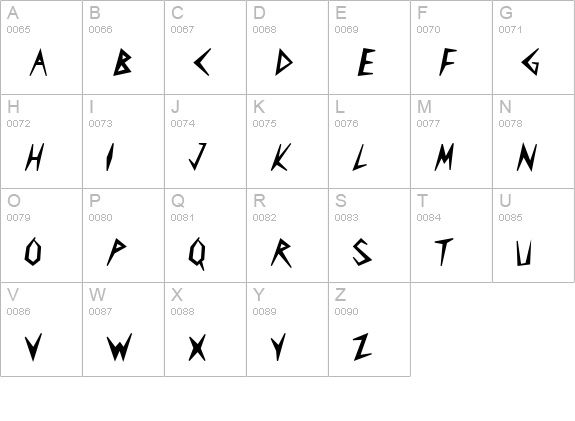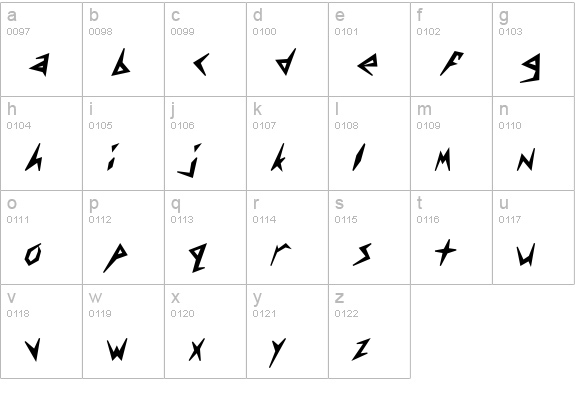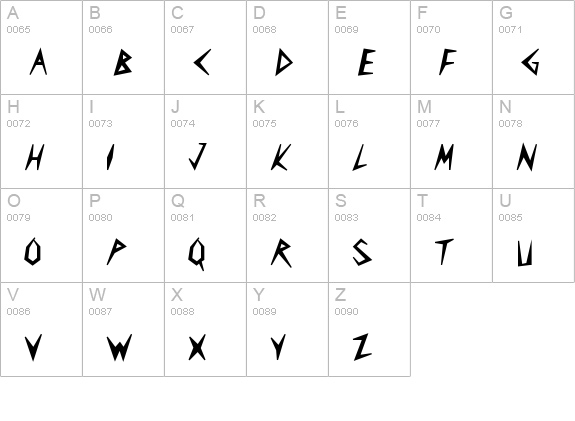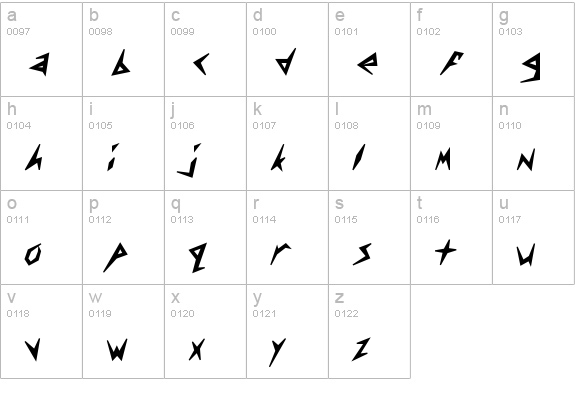
Slasher Heavy Normal is a heavy, high-impact variant in the Slasher typeface family \xE2\x80\x94 well suited to high-impact headlines, posters, and display advertising.
Slasher Heavy Normal font is the perfect choice for those looking to make a bold statement with their designs. This captivating typeface is characterized by its strong and angular letterforms, giving it a distinct and edgy aesthetic. With its heavy strokes and sharp edges, Slasher Heavy Normal commands attention and adds a touch of intrigue to any project. What makes Slasher Heavy Normal font even more enticing is the fact that it is freely available to download at FontsMarket.com. This means that you can easily access this remarkable font without any cost involved. Whether you're working on a poster, logo, or any other creative endeavor, Slasher Heavy Normal font will elevate your design to new heights. The versatility of Slasher Heavy Normal font is another reason to love it. From horror movie titles to heavy metal album covers, this font can effortlessly convey a sense of intensity and excitement. Its thick lines and bold presence make it a great choice for headlines, while its readability ensures that your message will be effectively communicated. Embrace the power of Slasher Heavy Normal font and make a lasting impression with your designs. Download it for free at FontsMarket.com and unleash its potential in your creative projects. Experience the thrill of this unique typeface and let it captivate your audience.